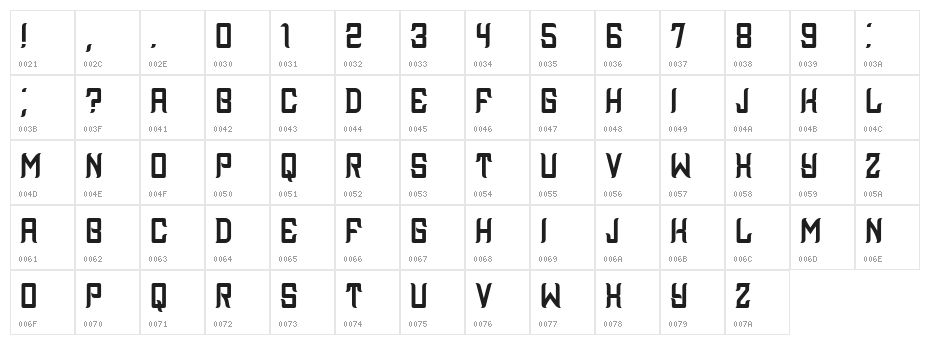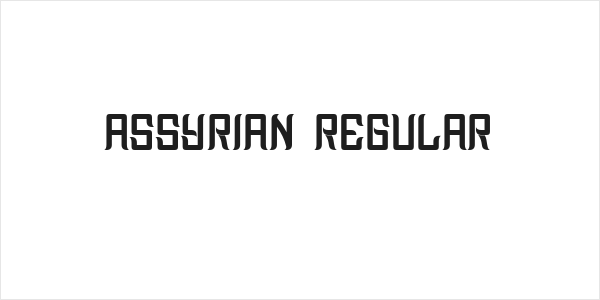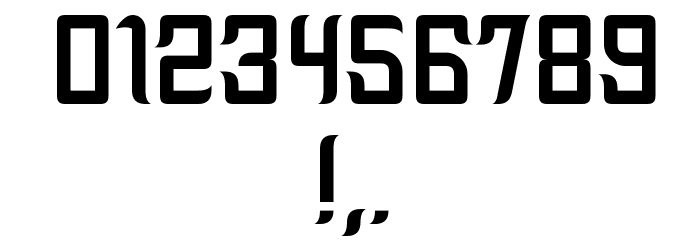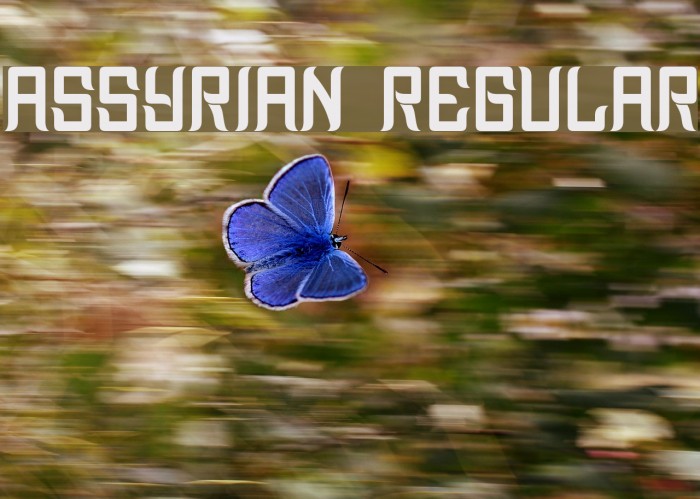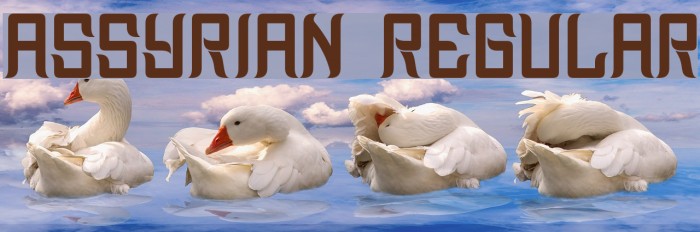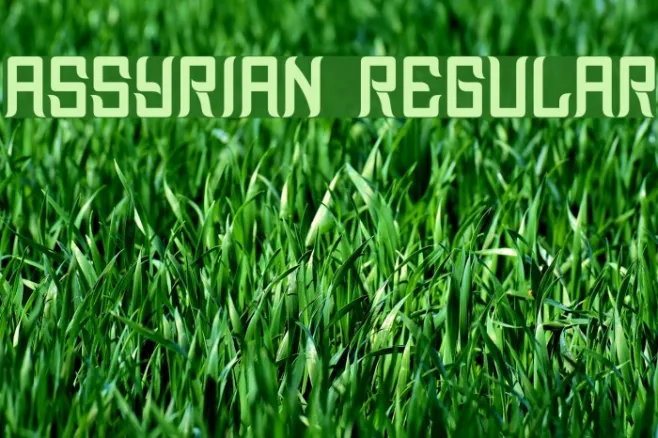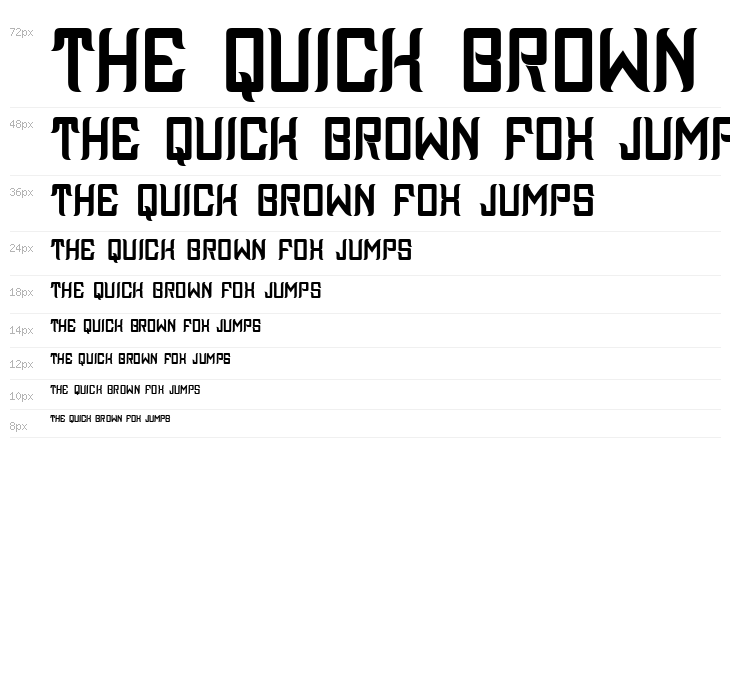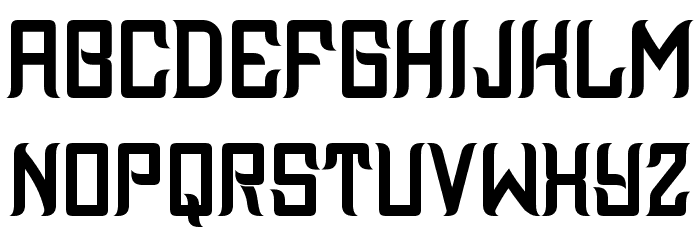
Assyrian Regular Font
Assyrian Regular Description
This font features a bold and geometric design, characterized by its strong, angular lines and sharp edges. The characters are uniformly structured, with a consistent height and width that gives a sense of balance and stability. The uppercase letters are particularly striking, with a block-like appearance that commands attention. The numerals and punctuation marks follow the same design principles, ensuring a cohesive look across all characters. This font's unique style makes it suitable for projects that require a modern and assertive aesthetic.